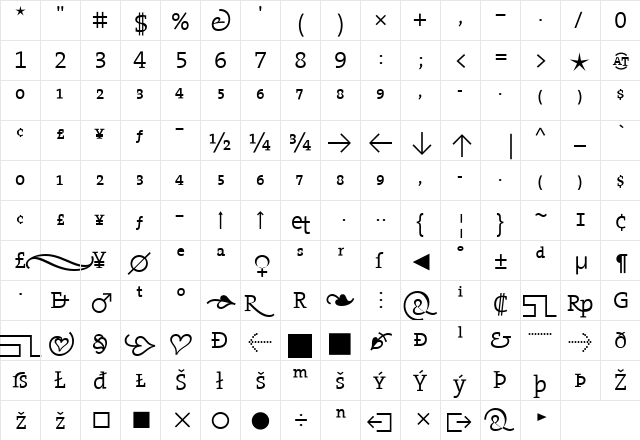
The Serif Semi Light- Regular Font Preview
The Serif Semi Light- Regular
The Serif Semi Light- Regular Font Details
Design Context for The Serif Semi Light- Typeface
The Serif Semi Light- brings classic typographic sensibility to the table — its serifs and measured letterforms reflect centuries of print heritage. The delicate stroke weight brings airiness and refinement to layouts.